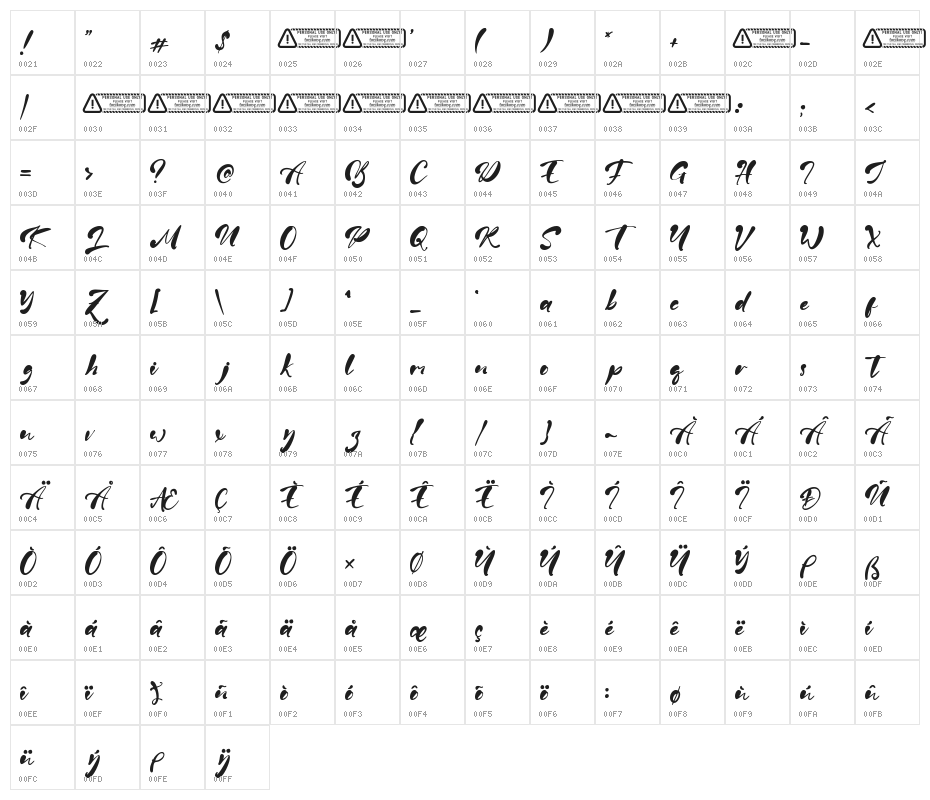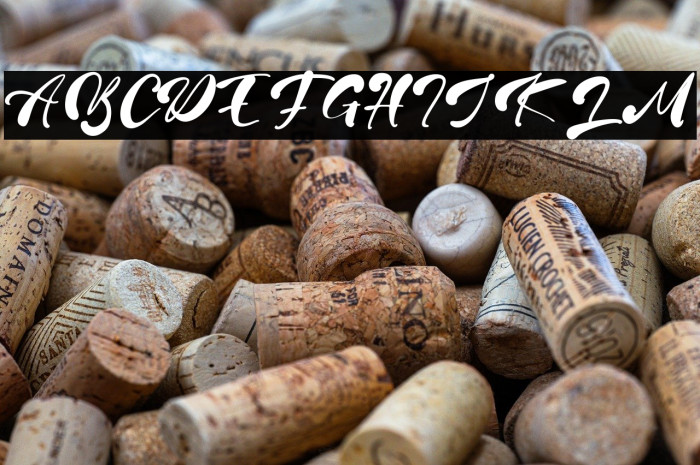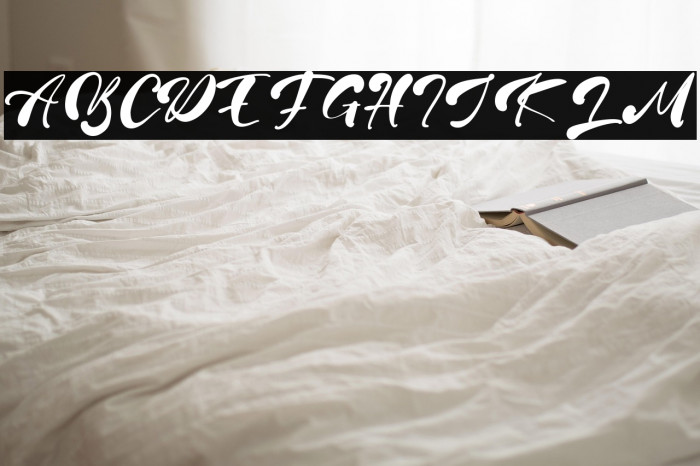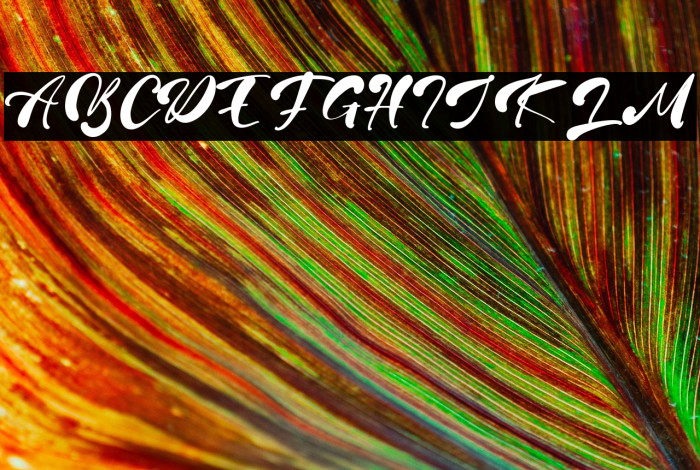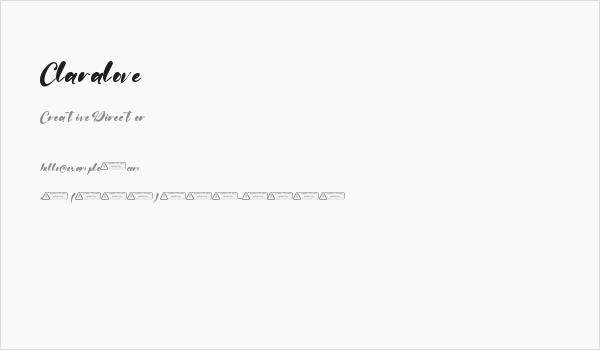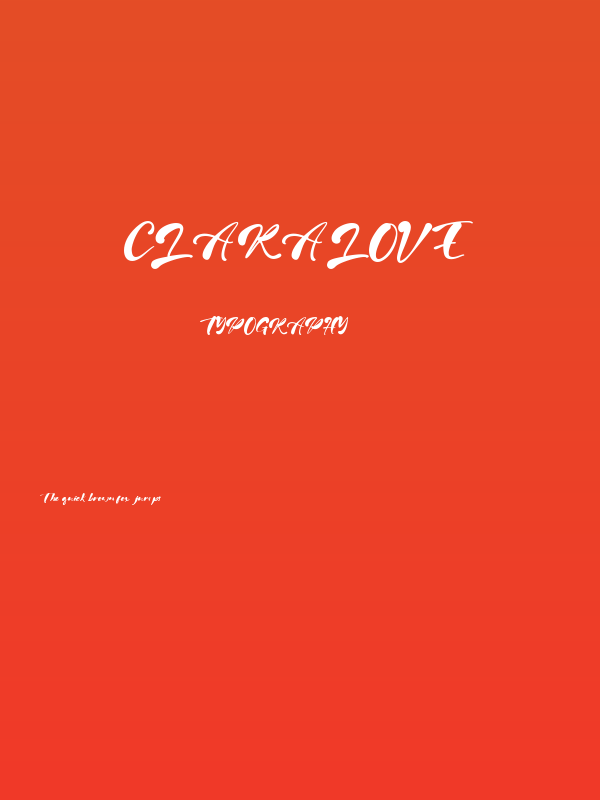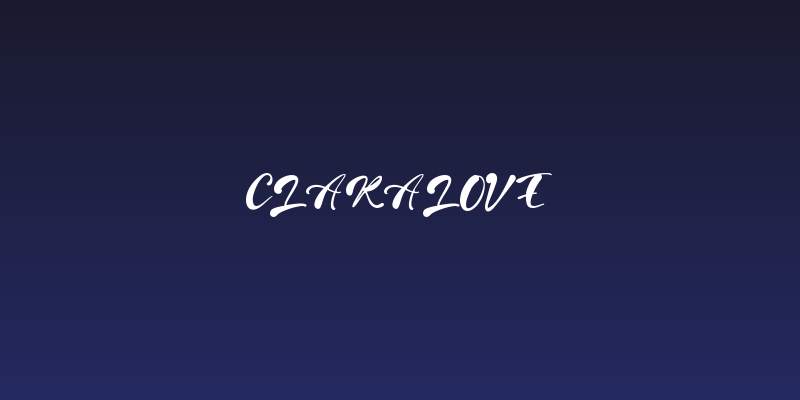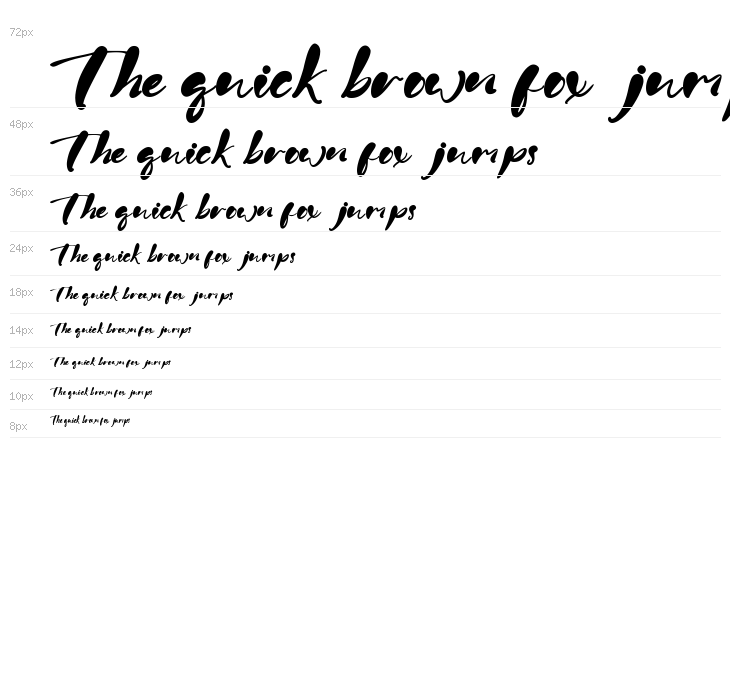
Claralove Font
Claralove Description
This font features a flowing, cursive style with elegant, sweeping strokes that give it a handwritten appearance. The uppercase letters are bold and dynamic, with a slight slant that adds a sense of movement and grace. The lowercase letters maintain the same fluidity, with rounded forms and smooth connections between characters. The numbers and special characters are designed to match the overall aesthetic, ensuring consistency throughout. The font's artistic flair makes it suitable for creative and expressive projects.
| Proposed Projects | Ideal for wedding invitations, greeting cards, logos, and branding materials that require a personal touch. |